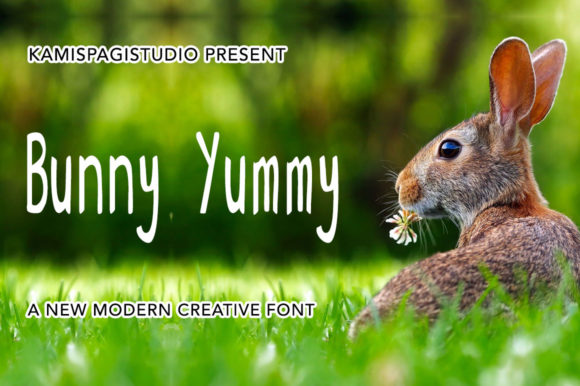
The Bunny Yummy Font: A Game-Changer for Creative Projects
Have you ever been in the middle of a design project, and suddenly, you’re stuck on finding the perfect font? I certainly have! It was just the other day when I was working on a DIY craft project for a client’s birthday, and I needed a font that would make it stand out. That’s when I stumbled upon the Bunny Yummy font, and let me tell you, it’s been a game-changer!
Bunny Yummy is a new modern and casual display font that’s perfect for creative projects. Its unique and playful style makes it an excellent choice for designers, crafters, and creative hobbyists. In this article, we’ll dive into the world of Bunny Yummy, exploring its features, and how to use it to take your designs to the next level.
An Honest Review of Bunny Yummy
What I Love About Bunny Yummy
• ✨ Unique and Playful Style: Bunny Yummy has a one-of-a-kind design that’s sure to grab attention.
• ✅ Easy to Read: Despite its playful style, Bunny Yummy is surprisingly easy to read, even in smaller sizes.
• 💫 Versatile: This font is perfect for a wide range of projects, from Instagram graphics to calligraphy scripts for DIY projects.
While Bunny Yummy is an amazing font, there are a few things to keep in mind:
• ⚠️ Limited Use in Formal Contexts: Due to its playful nature, Bunny Yummy might not be the best choice for formal or professional projects.
• 🤔 Some Letters May Appear Similar: A few letters in the font may appear similar, which can make it tricky to use in certain contexts.
The Backstory of Bunny Yummy
Bunny Yummy was designed with the intention of creating a unique and playful font that would inspire creativity. The designer wanted to create a font that would be perfect for a wide range of projects, from social media graphics to DIY crafts. With its modern and casual style, Bunny Yummy is sure to become a favorite among designers and crafters alike.
Font Name Bunny Yummy Font
Author kamispagistudio
Q: What is Bunny Yummy font?
A: Bunny Yummy is a modern and casual display font perfect for creative projects.
Q: Is Bunny Yummy suitable for formal projects?
A: Due to its playful nature, Bunny Yummy might not be the best choice for formal or professional projects.
Q: Is Bunny Yummy easy to read?
A: Yes, despite its playful style, Bunny Yummy is surprisingly easy to read, even in smaller sizes.